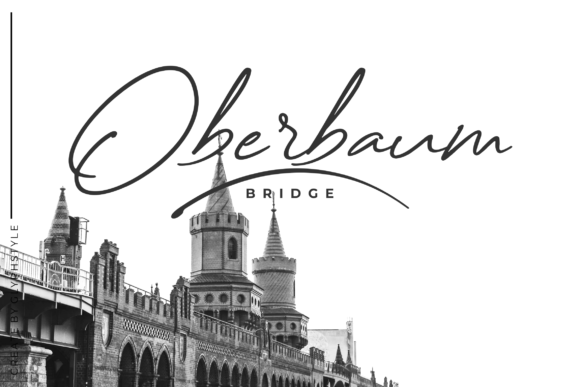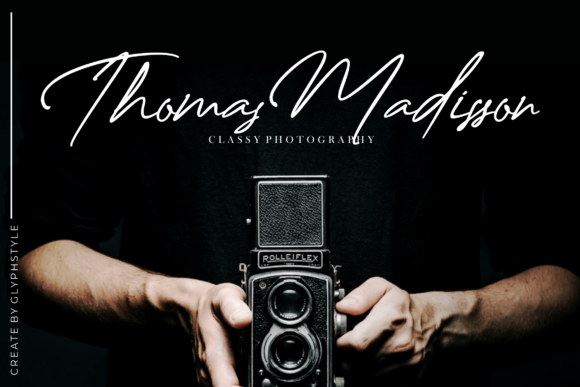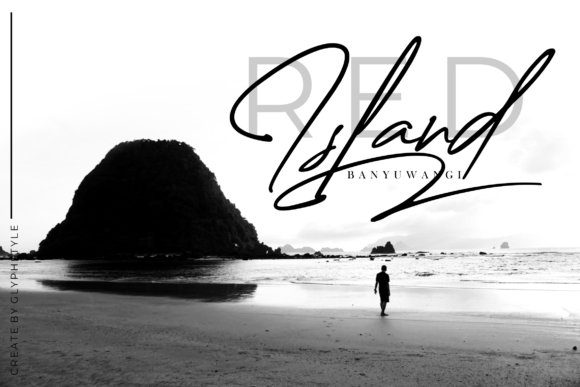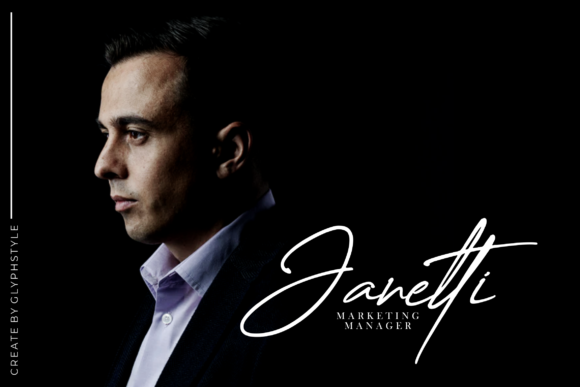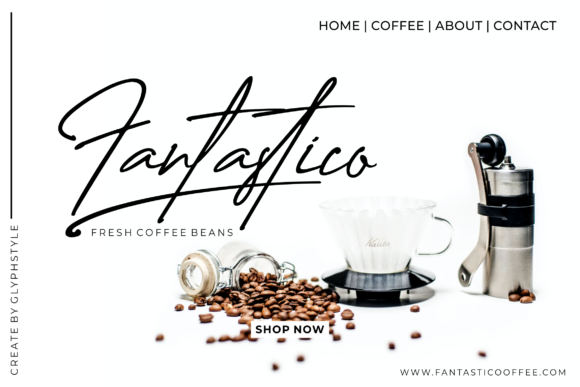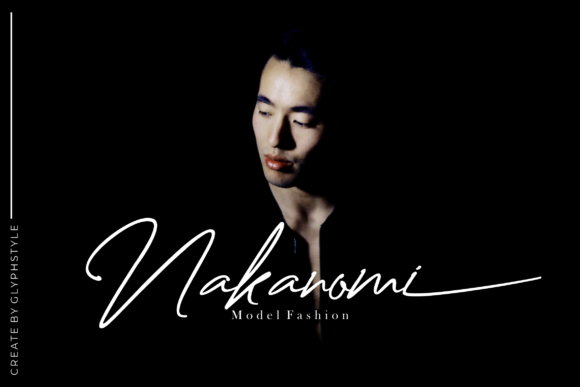
The Magic of Creattion Font: Elevate Your Designs with Classic Calligraphy
I’ll never forget the time I was working on a wedding invitation project, and my client asked for a font that would make the design “pop.” I scoured the internet, tried countless fonts, but nothing seemed quite right. That was until I stumbled upon Creattion Font. Its unique charm and classic calligraphy style instantly captivated me, and I knew I had found the perfect fit. In this article, I’ll share my experience with Creattion Font, its features, and how to make the most of it in your designs.
An Honest Review of Creattion Font
• ✨ Unique and elegant calligraphy style that adds a touch of sophistication to any design
• ✅ Highly versatile and works well for various design projects, from wedding invitations to branding and packaging
• 💫 Beautifully crafted letters with intricate details and subtle imperfections that give it a handmade feel
• 🎨 Excellent for creating eye-catching headlines, titles, and quotes that demand attention
While Creattion Font is an excellent choice for many design projects, there are a few things to keep in mind:
• ⚠️ Some users may find the font a bit challenging to read in smaller sizes, so it’s best to use it for headlines or titles rather than body text.
• 🤔 The font’s intricate details may not render well on low-resolution screens or images, so it’s essential to use high-quality images or vector graphics.
The Backstory of Creattion Font
Creattion Font was designed by a team of skilled typographers who wanted to create a font that would evoke the classic calligraphy styles of the past. Inspired by traditional copperplate engraving and hand-lettering techniques, they crafted a font that is both elegant and timeless. With its intricate details and beautiful letterforms, Creattion Font is perfect for designers who want to add a touch of sophistication to their work.
Q: What type of designs is Creattion Font best suited for?
A: Creattion Font is versatile and works well for various design projects, including wedding invitations, branding, packaging, and more.
Q: Is Creattion Font difficult to read?
A: While Creattion Font is a decorative font, it can be a bit challenging to read in smaller sizes. It’s best to use it for headlines or titles rather than body text.